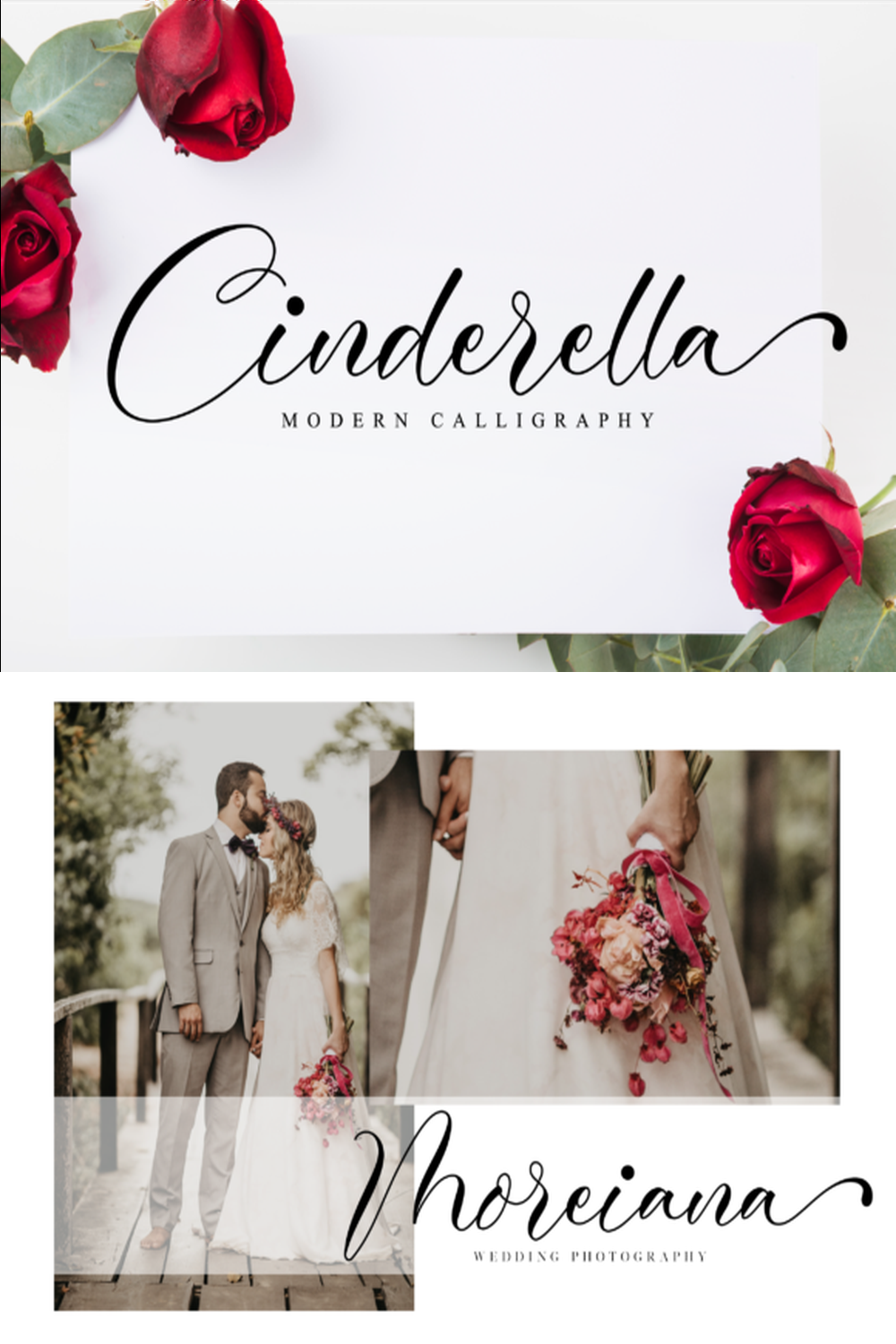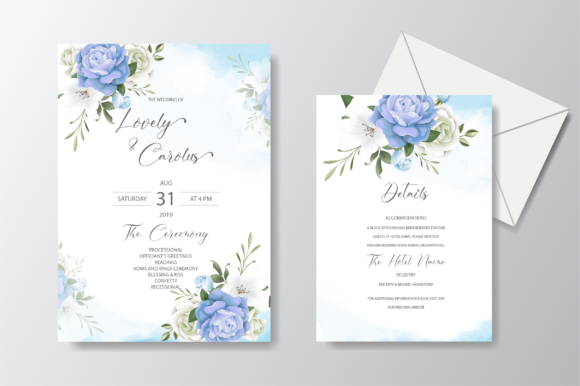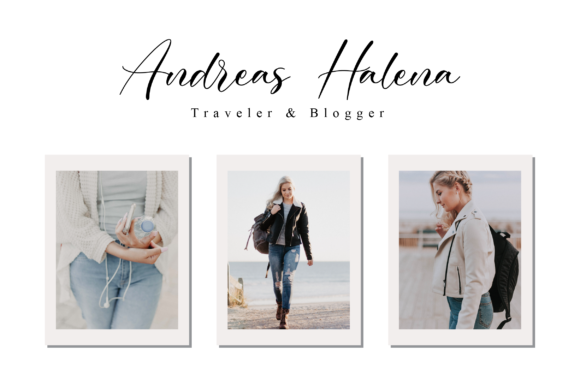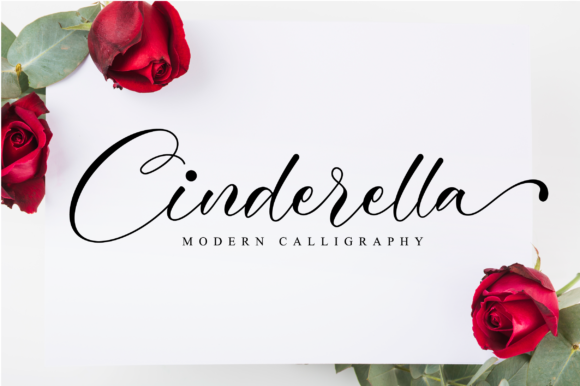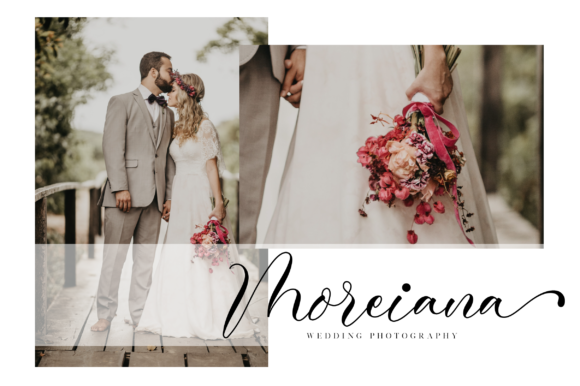
Cinderella Font: Elegant Calligraphy for Wedding Invitations & Branding
About the Cinderella Font
Presenting Cinderella Font, a unique and stylish typeface that will make your work stand out. Cinderella is a sweet, soft hand-lettered font. Fall in love with its authentic feel and use it to create gorgeous wedding invitations, beautiful stationary art, eye-catching social media posts, and cute greeting cards.
Cinderella Font Usage Examples